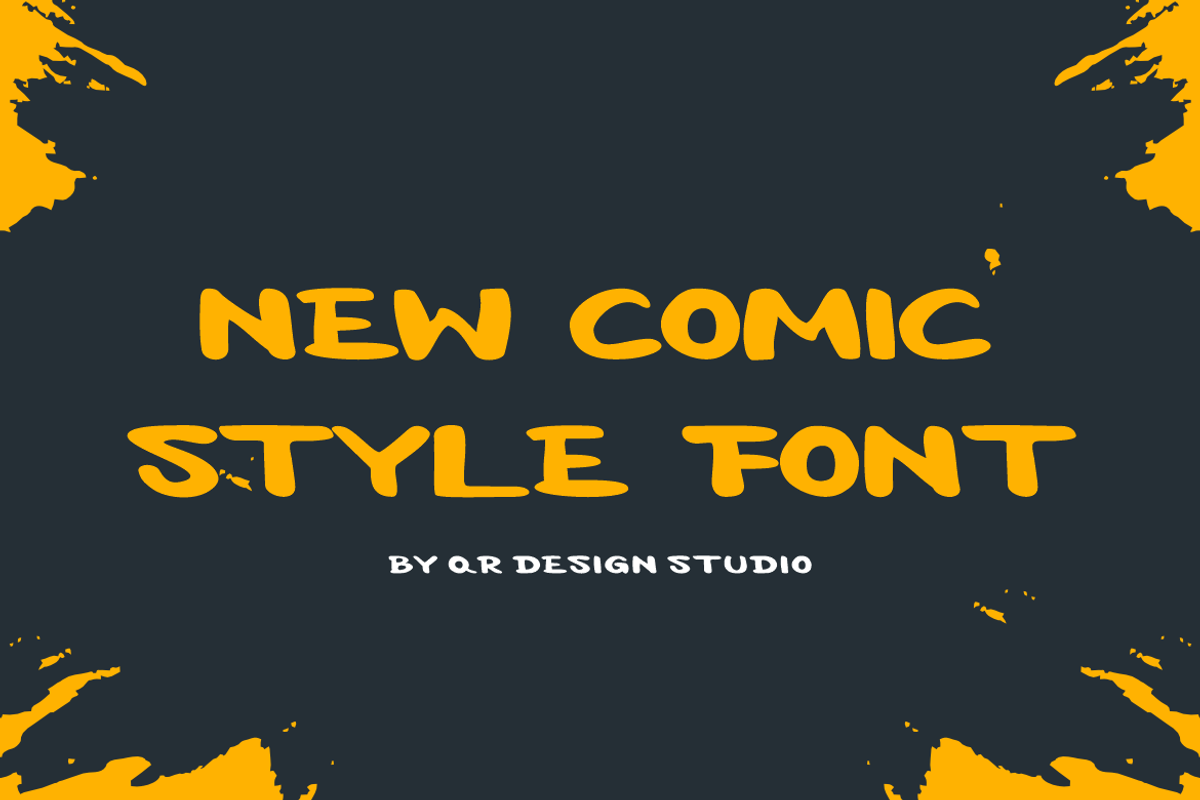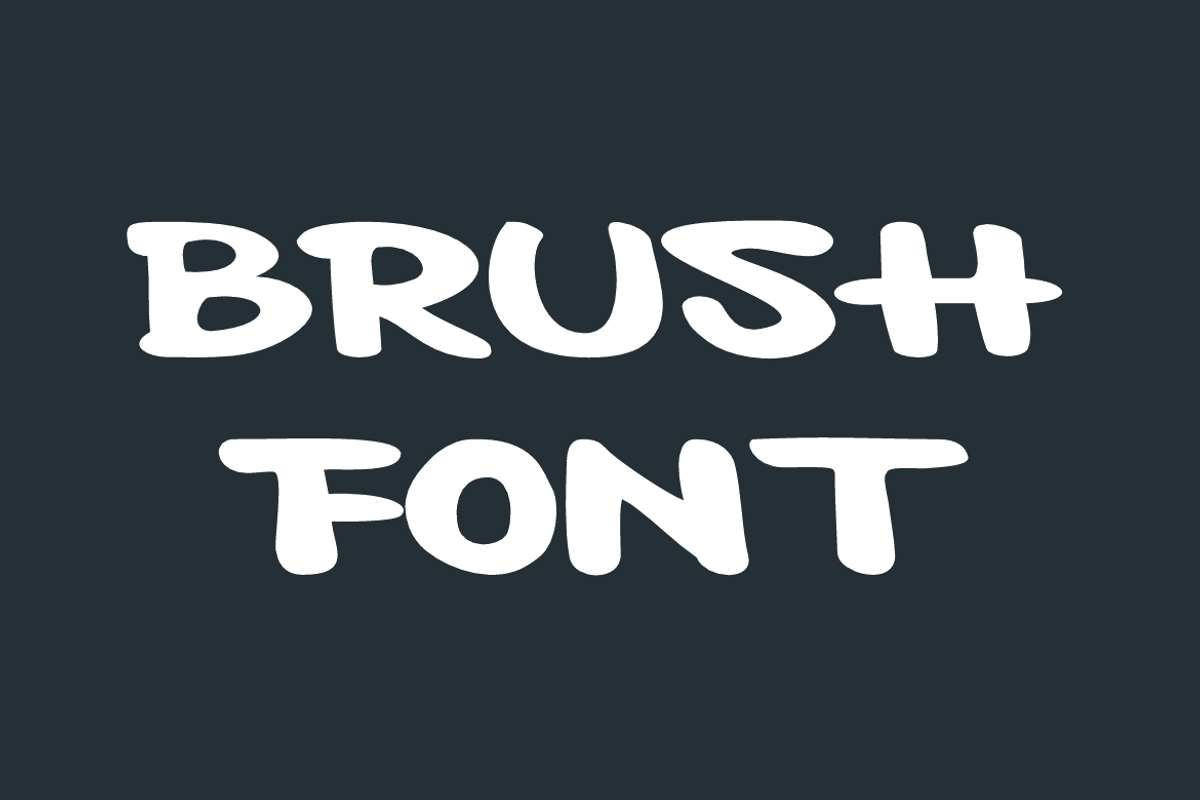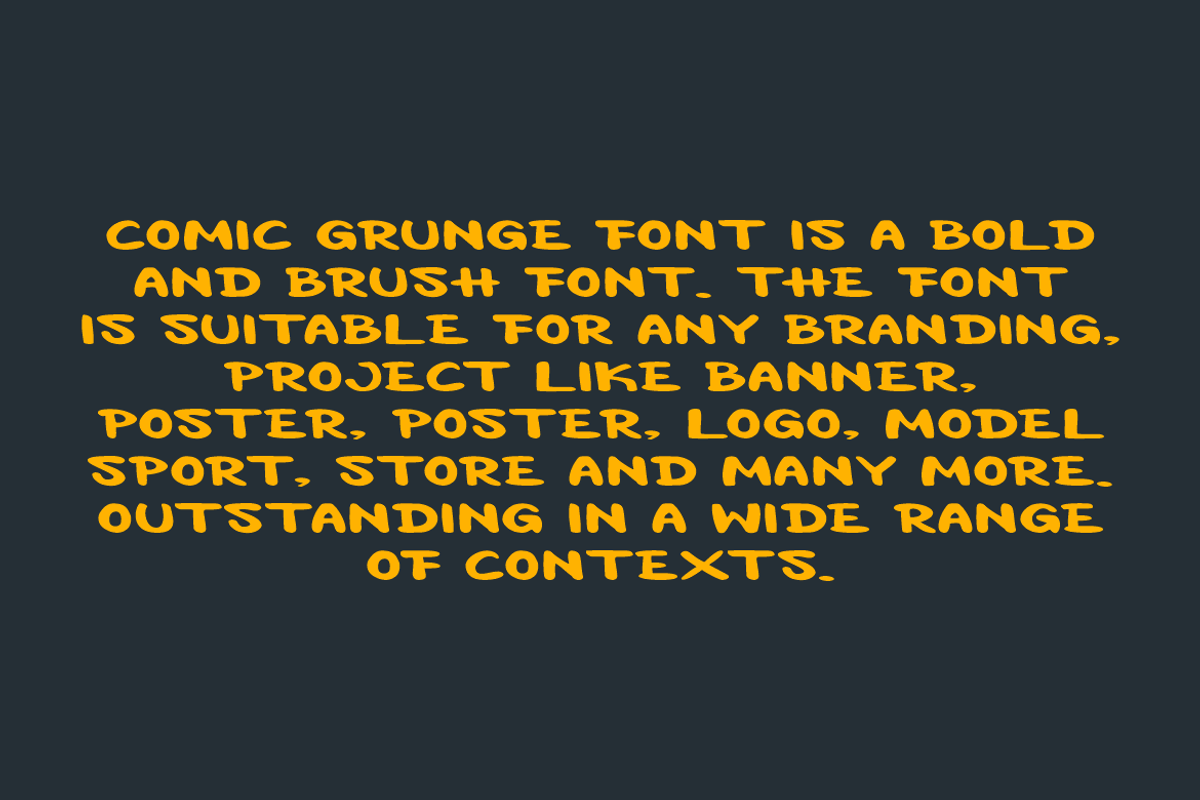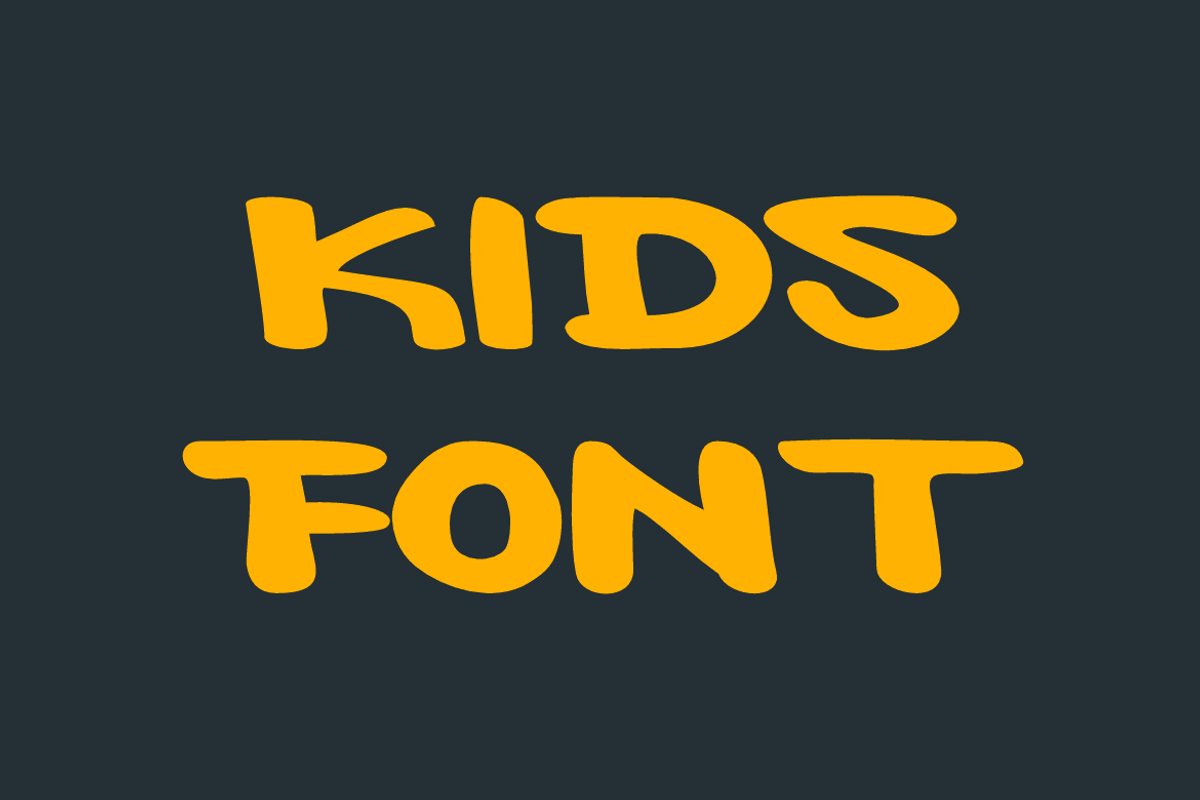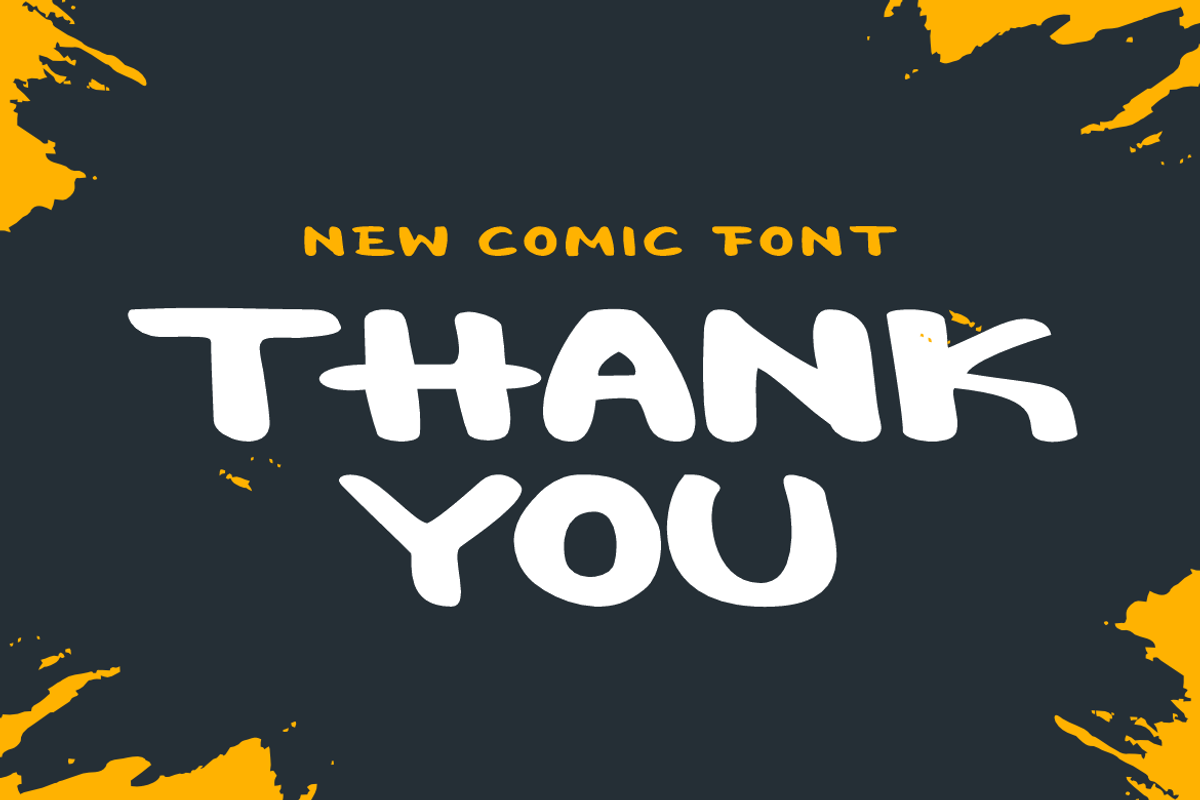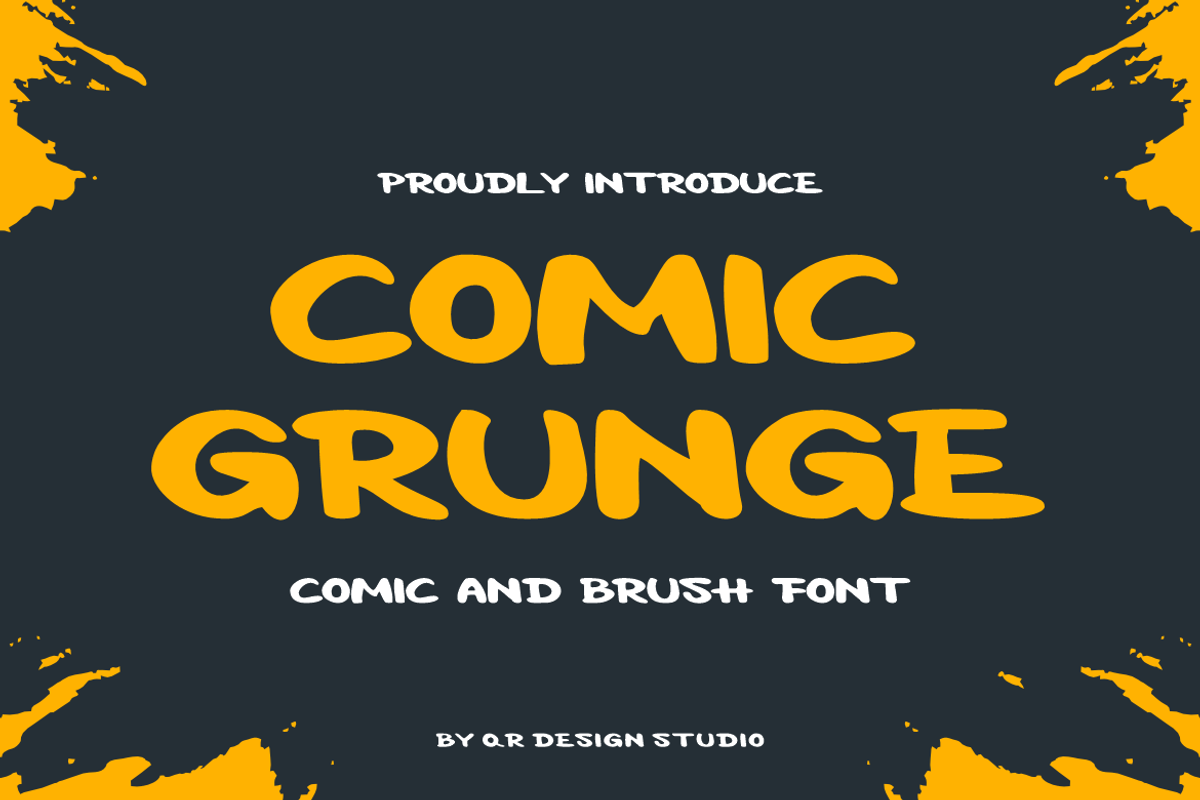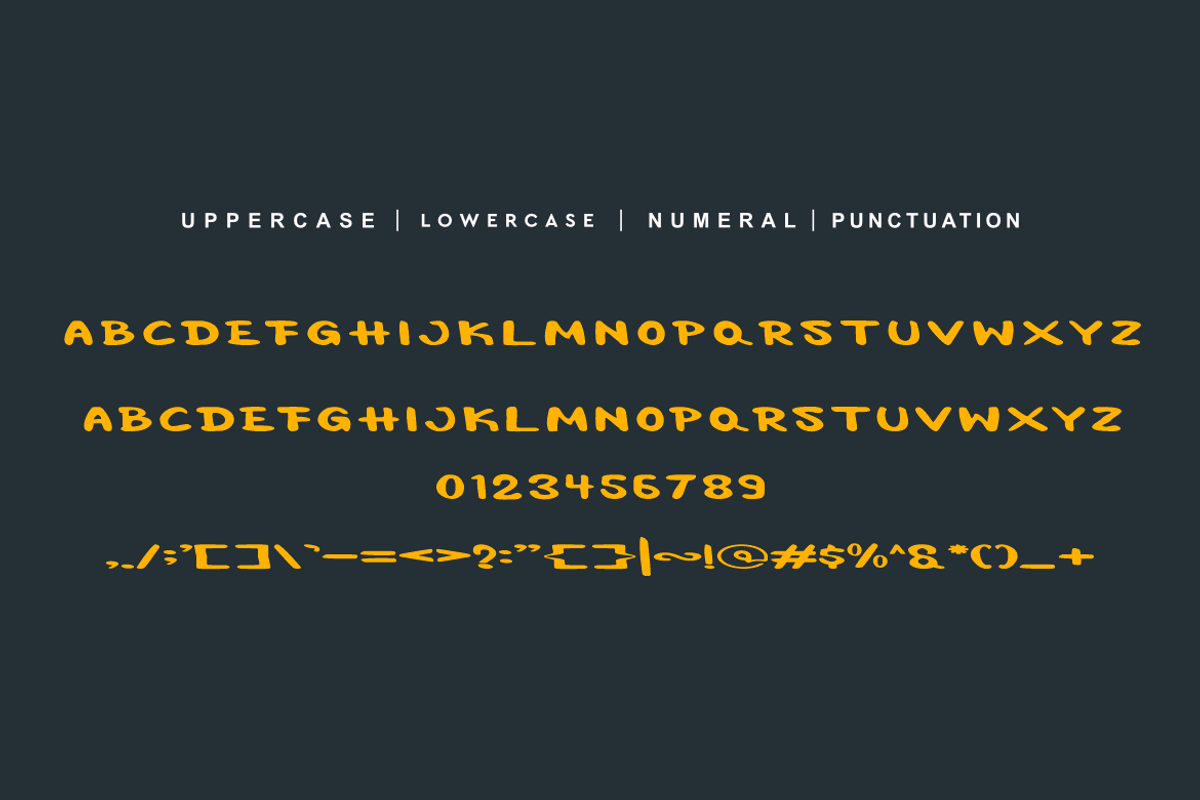
Comic Grunge Font
Comic Grunge Font is a bold and authentic display font. The font is suitable for any branding project like kids, comic, poster, logo, sport, and many more. Outstanding in a wide range of contexts.